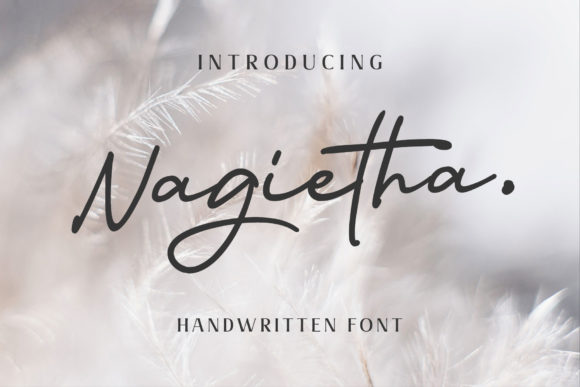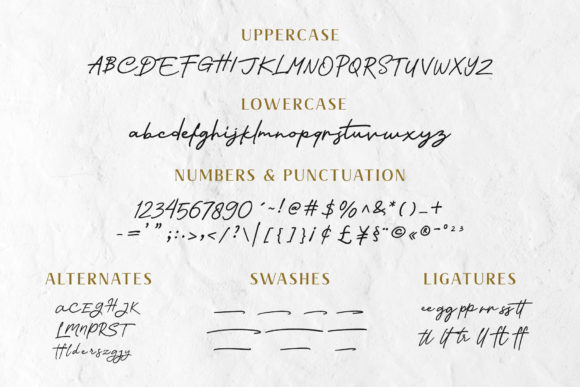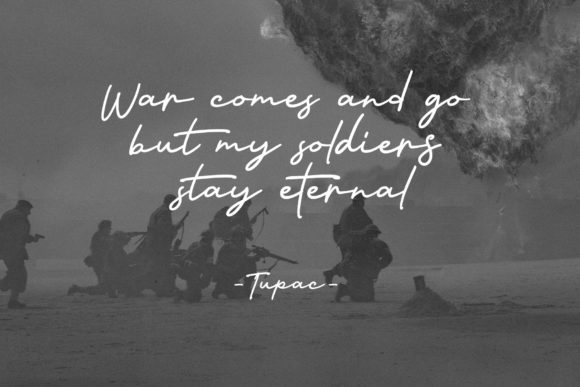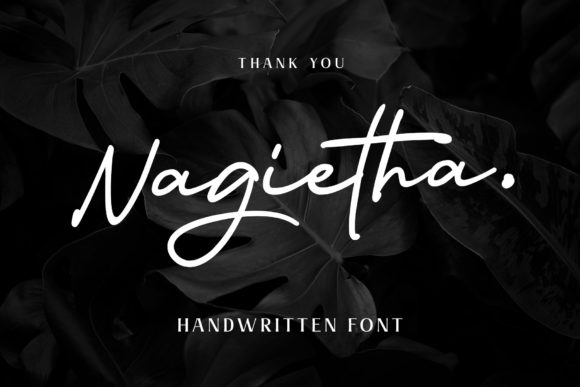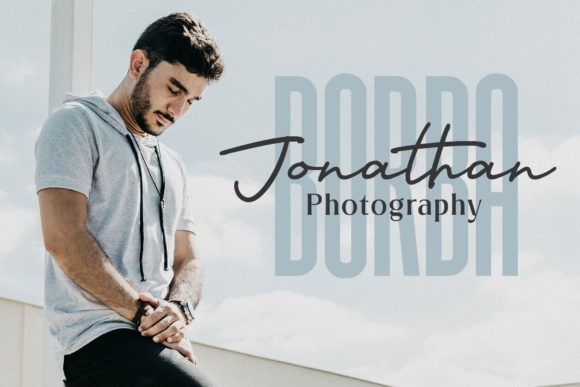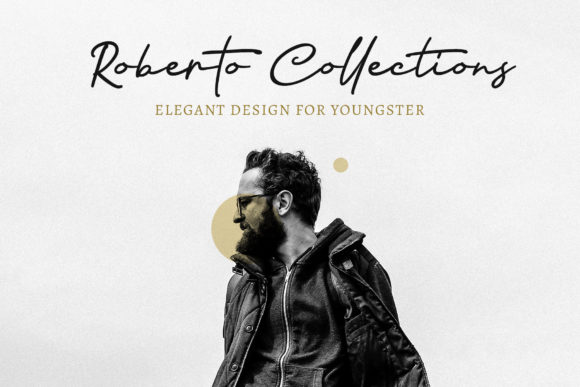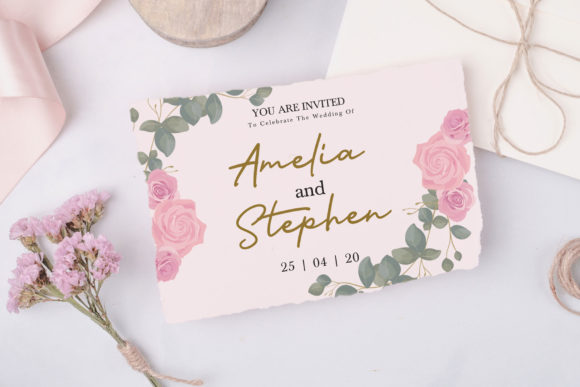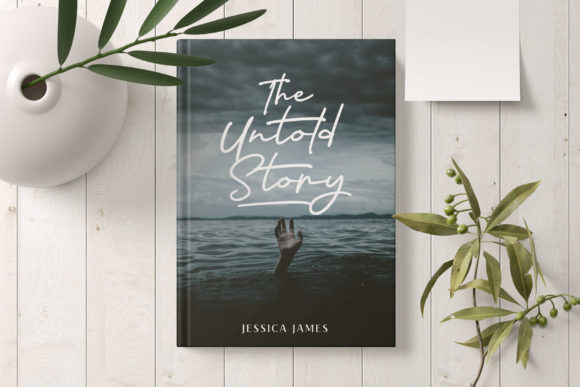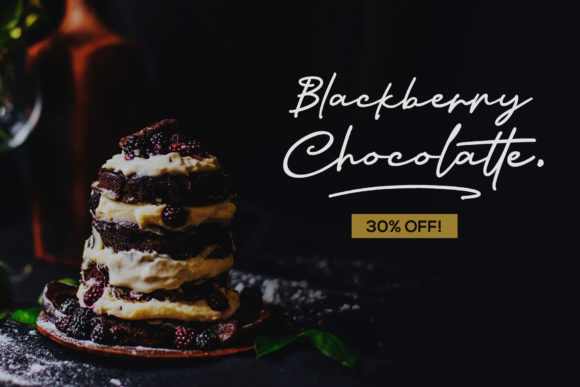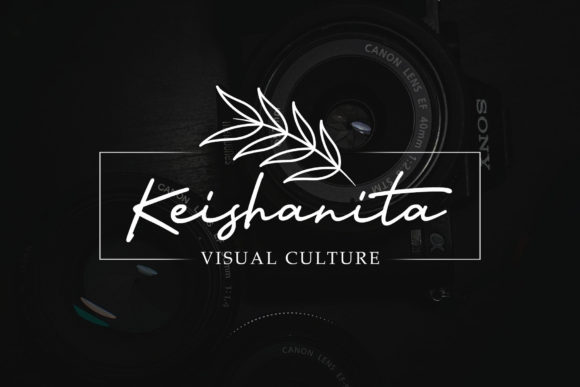
Nagietha Font
About Nagietha Font
Nagietha is a flowing handwritten font carefully created with a touch of elegance. This is a beautiful combination of timeless elegance and authentic calligraphy. It features an incredibly classic style, while still keeping a friendly feel. Nagietha is the perfect font for making original and outstanding designs.